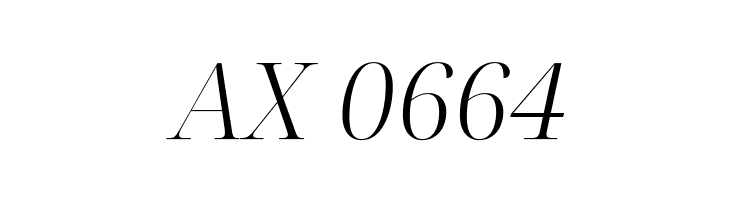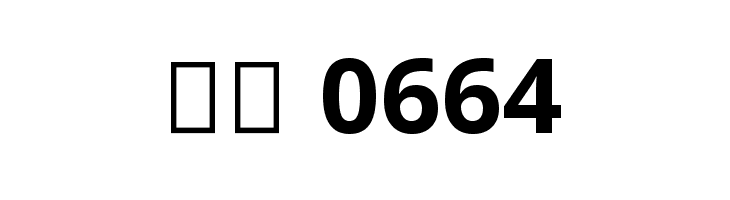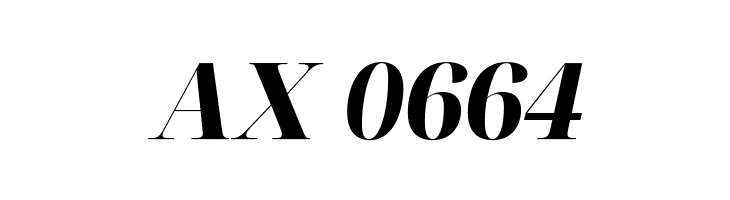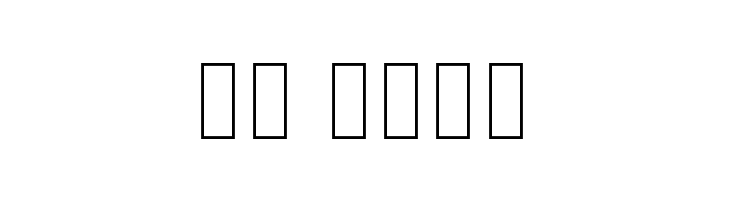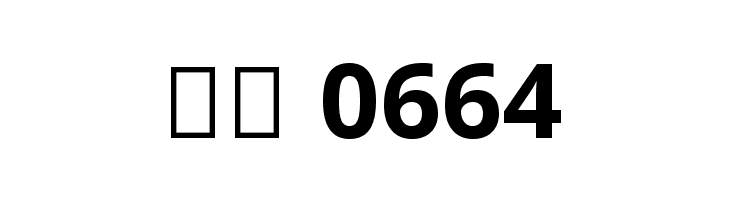
Elegant serif font with italic slant, extra-condensed width, and semi-bold weight.
A highly condensed, bold font with a modern and geometric style.
A clean, modern, and condensed font with thin strokes and high readability.
A sleek, extra light, and extra condensed font with a modern and minimalist design.
A modern, condensed sans-serif font with low contrast and clean lines.
A bold, extra condensed font with a modern and impactful style.
Elegant serif font with a light, italic style and high contrast.
A modern, condensed font with a clean and readable design.
A modern, extra bold, and highly condensed font with a minimalist design.
A bold, modern typeface with strong, clear characters.
A modern, extra-condensed font with light strokes and clear readability.
A bold, clean, and modern font with excellent readability.
A structured, geometric font representing ancient cuneiform script.
A modern, extra condensed semi-bold font for the Myanmar script.
A sophisticated serif font with extra bold weight and italic style, perfect for display use.
A modern, sans-serif font ideal for digital interfaces with clear, legible characters.
A modern, semi-condensed, semi-bold font ideal for clear and readable text.
A clean, modern sans-serif typeface with a light weight and balanced design.
A condensed, extra-light font with a modern and elegant design.